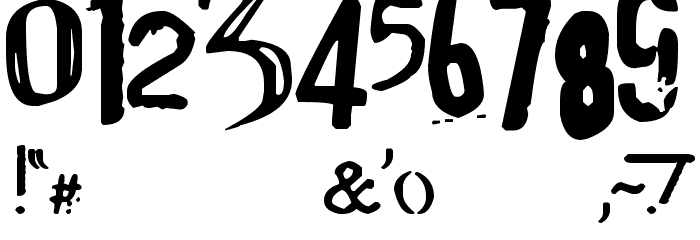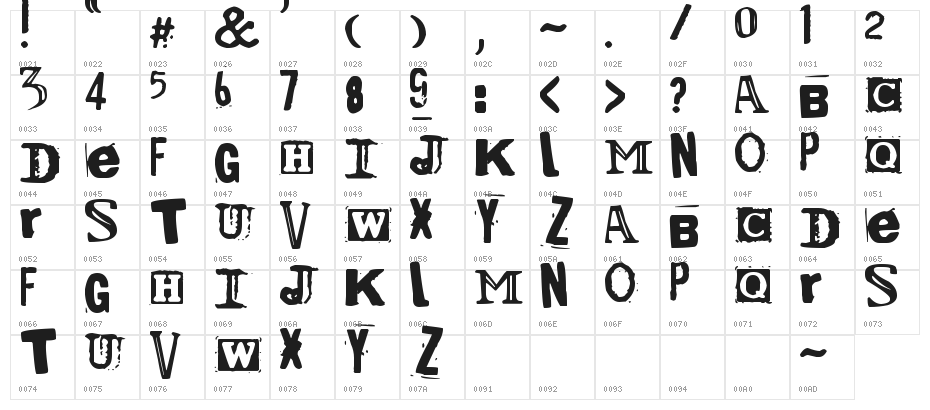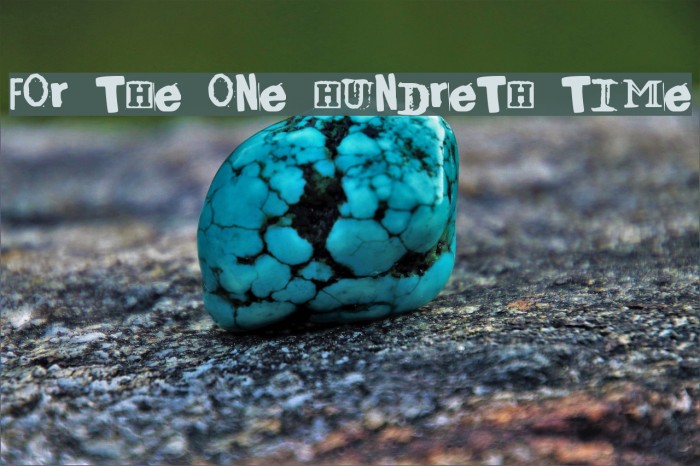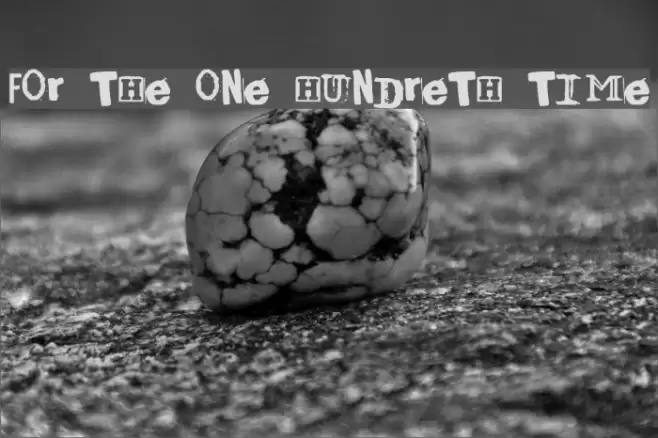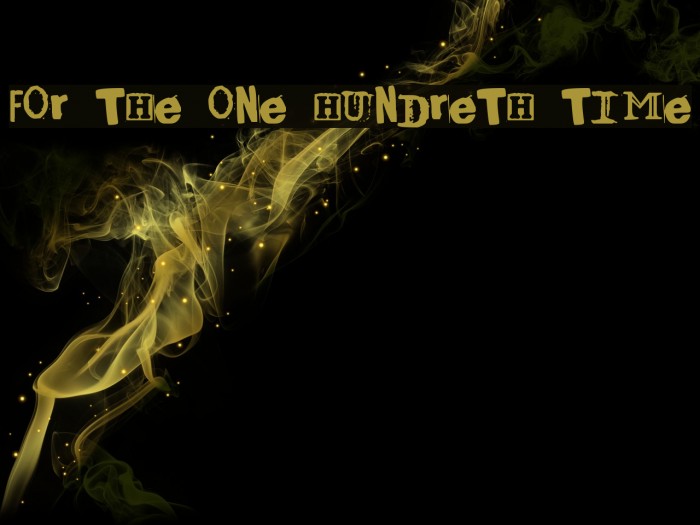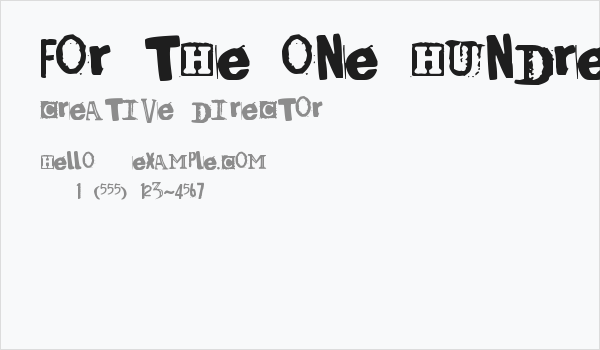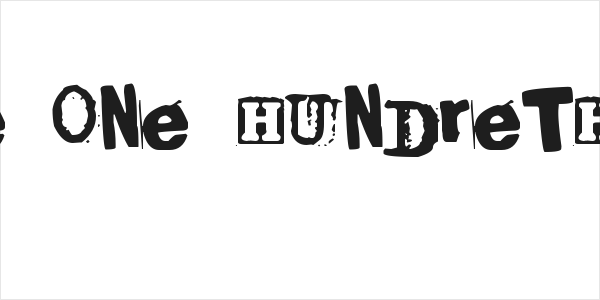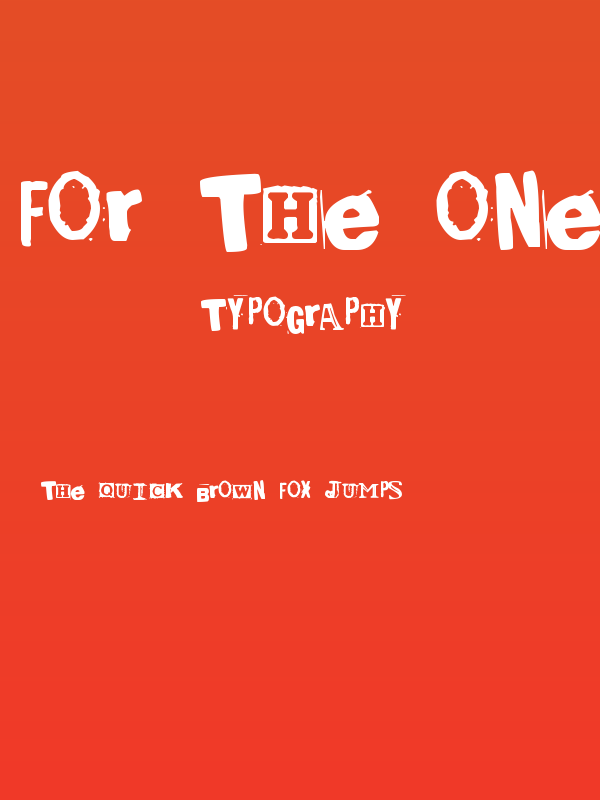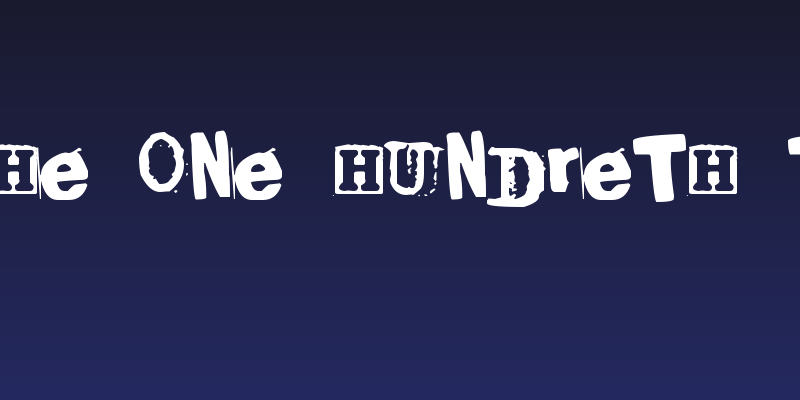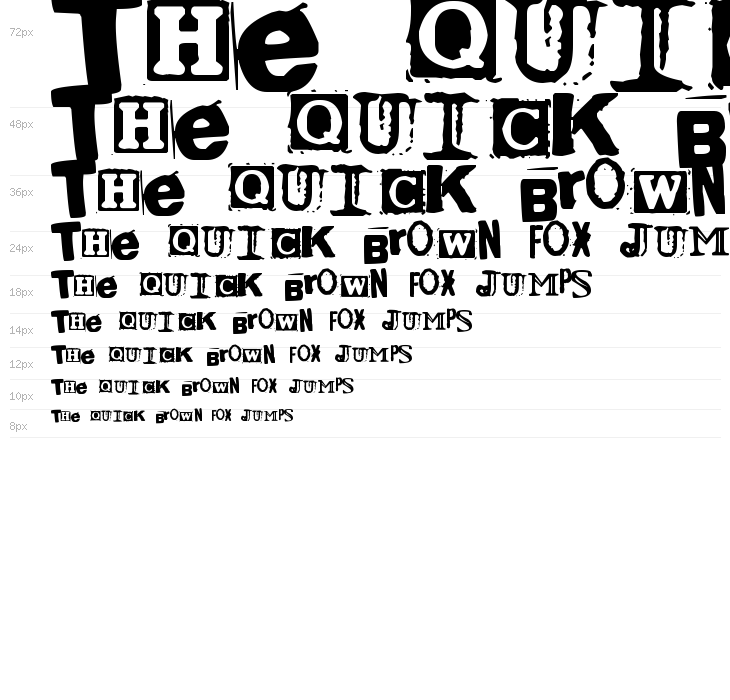
For The One Hundreth Time Font
For The One Hundreth Time Description
This font features a highly decorative and eclectic style, combining elements of grunge and vintage aesthetics. Each character is uniquely designed with varying levels of distress and irregularity, giving it a hand-crafted appearance. The uppercase letters are bold and impactful, with some characters enclosed in boxes or featuring shadow effects. The lowercase letters maintain the same distressed look, adding to the overall quirky and artistic vibe. Numbers and special characters follow suit, each with its own distinct flair, making this font ideal for creative and unconventional projects.
| Overall Style | Vintage, Decorative |
| Proposed Projects | Ideal for album covers, posters, artistic branding, and any project requiring a bold, creative touch. |